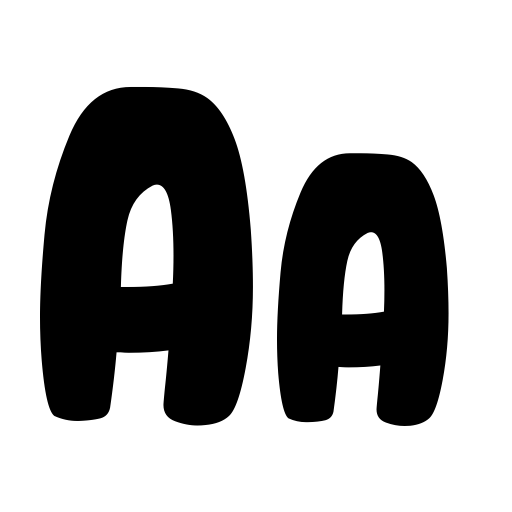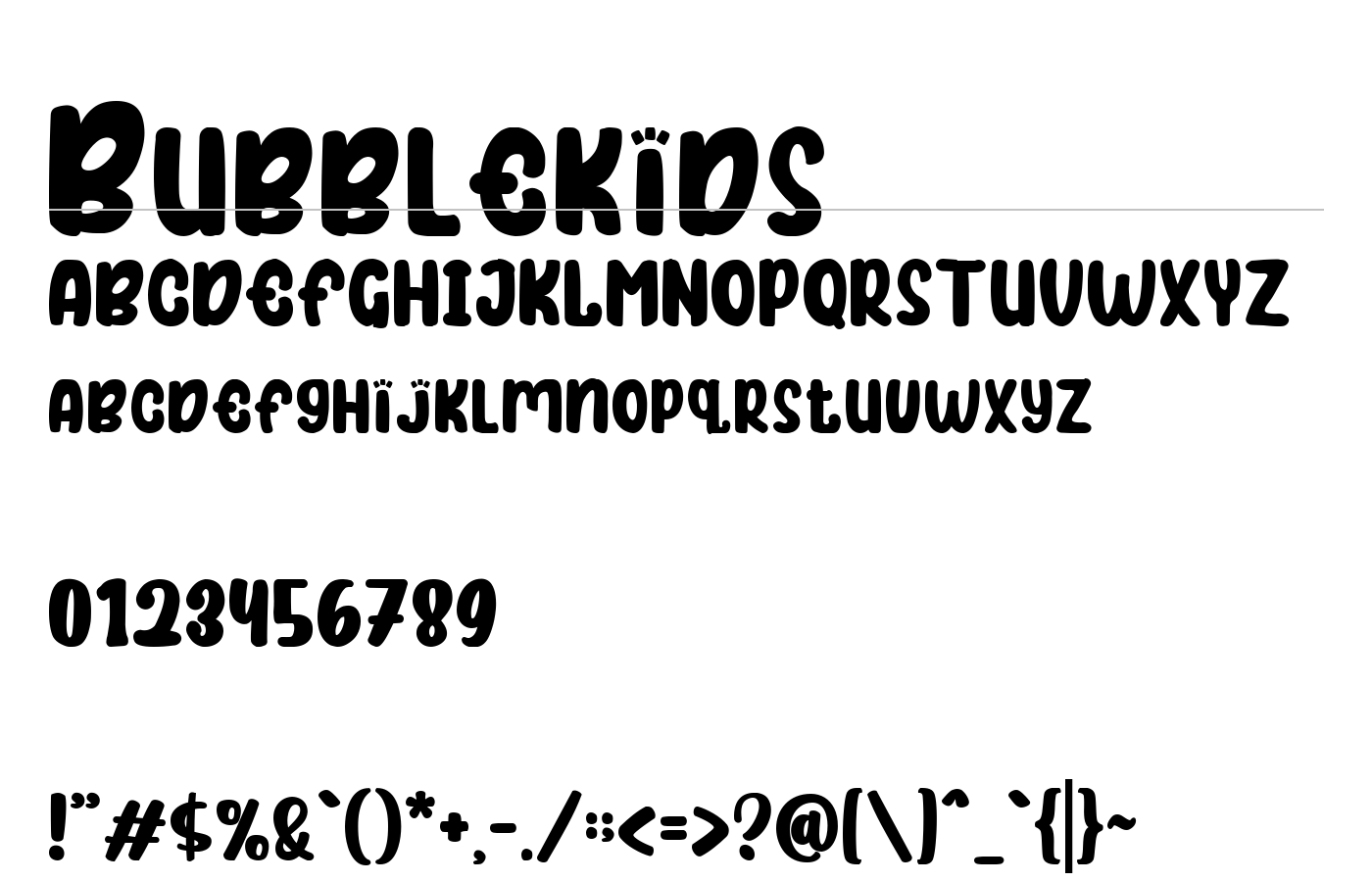
Bubblekids is a playful, bold sans-serif font with soft, rounded edges that give it a friendly and approachable feel. Its chunky letterforms and whimsical details, like the decorative dots on the "i" and "j," make it ideal for children's designs, packaging, and informal branding. This font works best for headlines and display use where a fun, lively personality is desired.
Bubblekids Font
About Bubblekids Font
| Font family | Bubblekids Font |